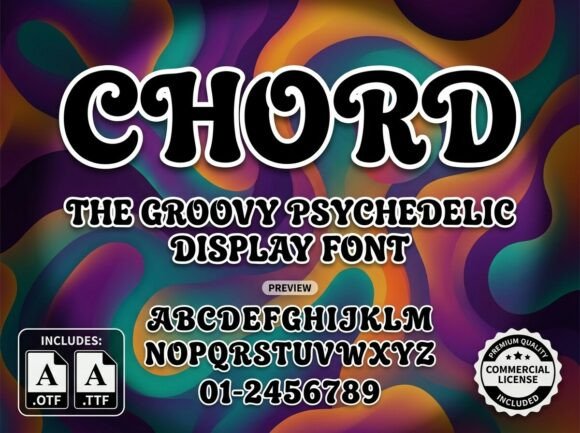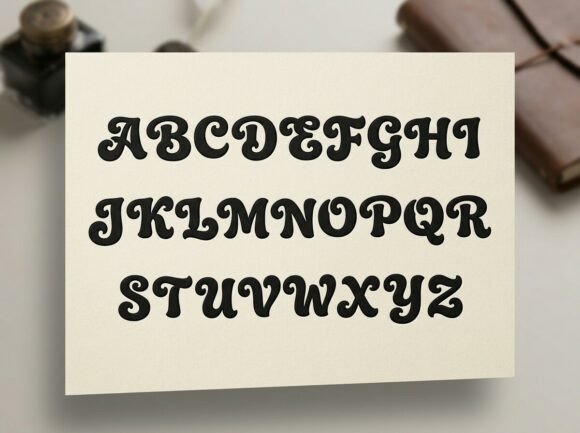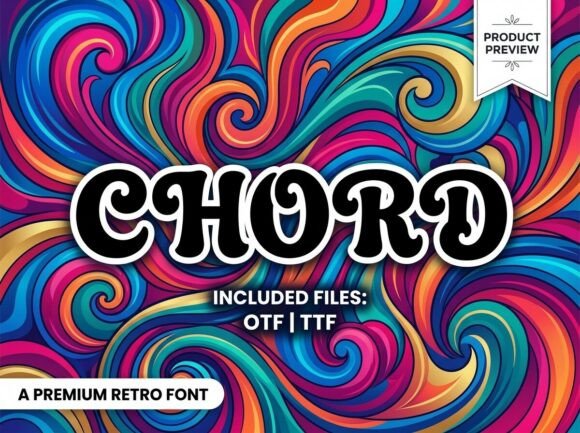
Harmonize Your Visual Identity with Chord Font
In the world of typography, a font can make or break a brand’s visual identity. For those seeking a typeface that embodies a unique blend of groovy and glamorous vibes, Chord Font is the perfect solution. This expressive display typeface is designed to capture the essence of psychedelic rock posters and modern boutique branding, making it an ideal choice for designers and crafters looking to add a touch of personality to their projects.
The Unique Characteristics of Chord Font
Chord Font boasts heavy, flowing letterforms that are uniquely characterized by rhythmic, spiraling swashes and high-contrast curves. These distinctive features bridge the gap between retro and modern design, giving the font a theatrical personality that’s hard to ignore. The swashes and curves work in harmony to create a sense of movement and energy, making Chord perfect for projects that require a dynamic and eye-catching approach.
Chord Font is specifically designed for use in a variety of creative projects, including:
- Independent Record Store Identities: Add a touch of psychedelic flair to your record store’s branding with Chord Font. The font’s unique character is sure to make your store stand out from the crowd.
- Boutique Lifestyle Logos: Elevate your boutique’s brand with Chord Font’s glamorous and sophisticated vibe. The font’s high-contrast curves and swashes will add a touch of luxury to your logo.
- Vintage Apparel Labels: Give your vintage apparel labels a retro twist with Chord Font. The font’s groovy personality is perfect for brands that want to evoke a sense of nostalgia and fun.
- High-Impact Social Media Headers: Make a statement on social media with Chord Font’s bold and eye-catching design. The font’s rhythmic swashes and curves will add a touch of energy to your headers.
Why Choose Chord Font?
With so many fonts available, why choose Chord Font? Here are just a few reasons why designers and crafters are falling in love with this unique typeface:
- Theatrical Personality: Chord Font has a personality that’s hard to ignore. Its unique blend of groovy and glamorous vibes makes it perfect for projects that require a touch of drama and flair.
- Soulful Flow: The font’s rhythmic swashes and curves create a sense of movement and energy, making it perfect for projects that require a dynamic approach.
- Versatility: Chord Font can be used in a variety of projects, from independent record store identities to high-impact social media headers.
Tips for Using Chord Font
To get the most out of Chord Font, here are a few tips to keep in mind:
- Experiment with Swashes: Chord Font’s swashes are a key feature of the typeface. Experiment with different swash styles to find the one that works best for your project.
- Play with Contrast: Chord Font’s high-contrast curves are a hallmark of the typeface. Play with contrast to create visual interest and add depth to your design.
- Keep it Bold: Chord Font is a bold and eye-catching typeface. Don’t be afraid to use it in bold and creative ways to make a statement.
In conclusion, Chord Font is a unique and expressive display typeface that’s perfect for designers and crafters looking to add a touch of personality to their projects. With its theatrical personality, soulful flow, and versatility, Chord Font is the premier choice for independent record store identities, boutique lifestyle logos, vintage apparel labels, and high-impact social media headers. So why settle for a boring, generic font when you can harmonize your visual identity with Chord Font?